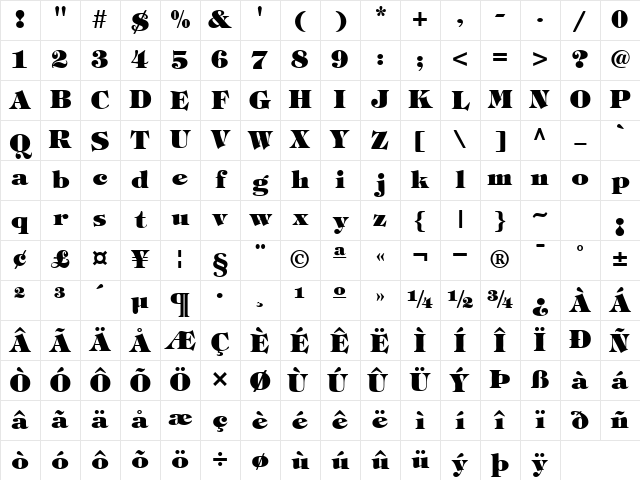
SophisticateUltraSSK Regular
Design Context for SophisticateUltraSSK
SophisticateUltraSSK is a composed and adaptable typeface that performs quietly and consistently across a wide range of design contexts.